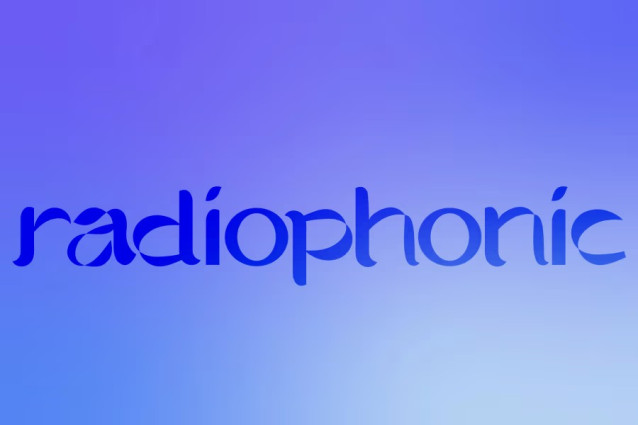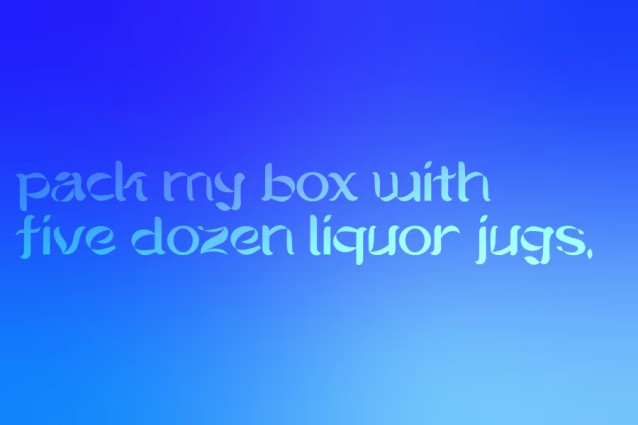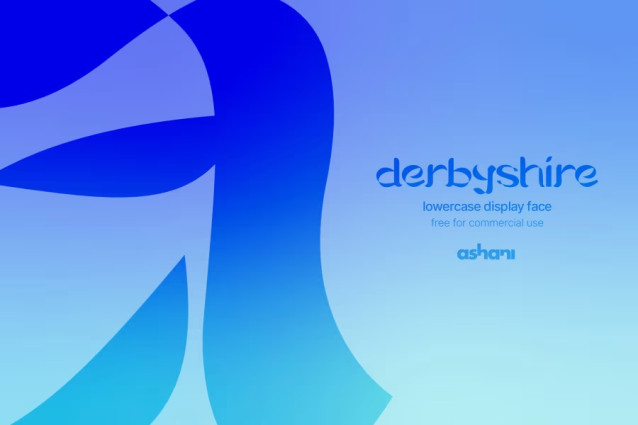
Derbyshire Font is a display font influenced by the work of electronic music pioneer Delia Derbyshire.The font is a lowercase Latin glyph set with a high contrast and asymmetrical letterform anatomy – reflecting the abstract, dynamic and spontaneous nature of Delia’s music; alongside its adorned, flourished appearance which is a showcase of the dichotomy between musical convention with Delia’s innovation.
Derbyshire Font